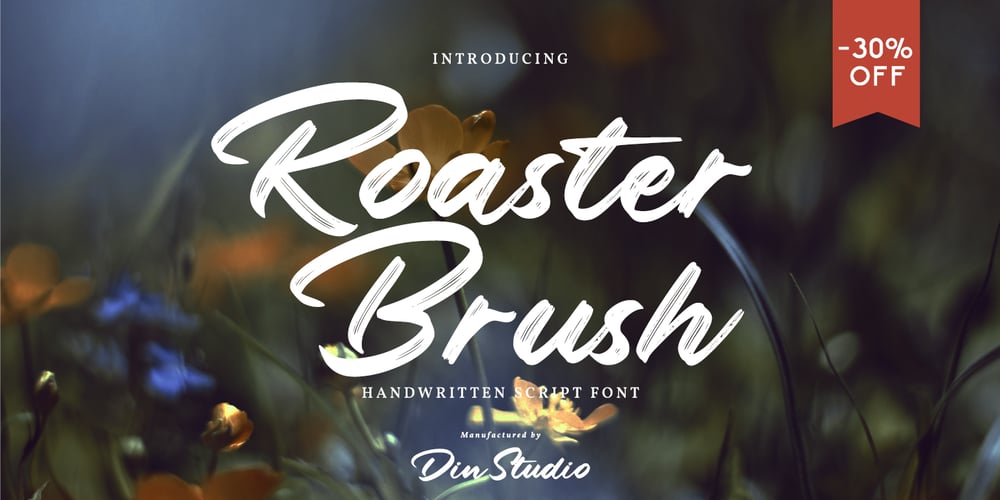
Roaster Brush
Roaster Brush font
Roaster Brush Font Family was designed by Donis Miftahudin and published by Din Studio. Roaster Brush contains 1 styles and family package options. Roaster Brush is a elegant handwritten font. The handwritten combined with brush font will make your design project more attractive. Made for any professional project branding. It is the best for logos, branding and quotes. Every letter has a unique and beautiful touch.Features: Multilingual Support PUA Encoded Numerals and Punctuation Thank you for downloading from Din Studio.